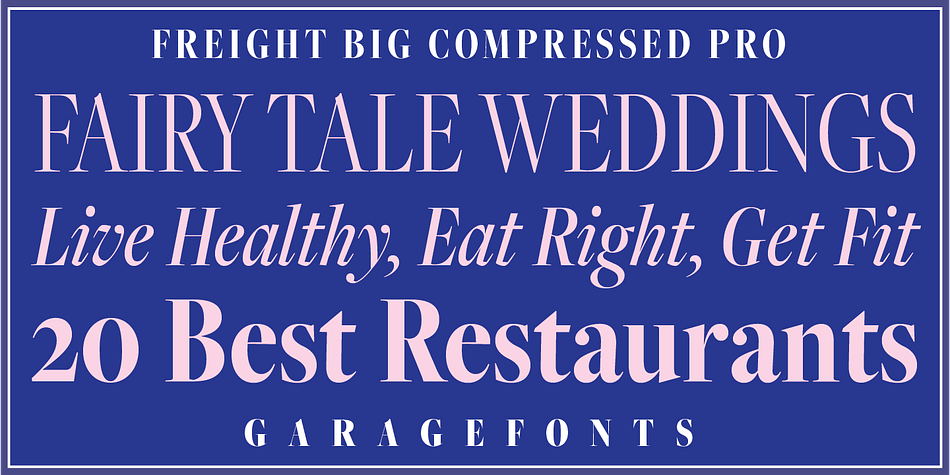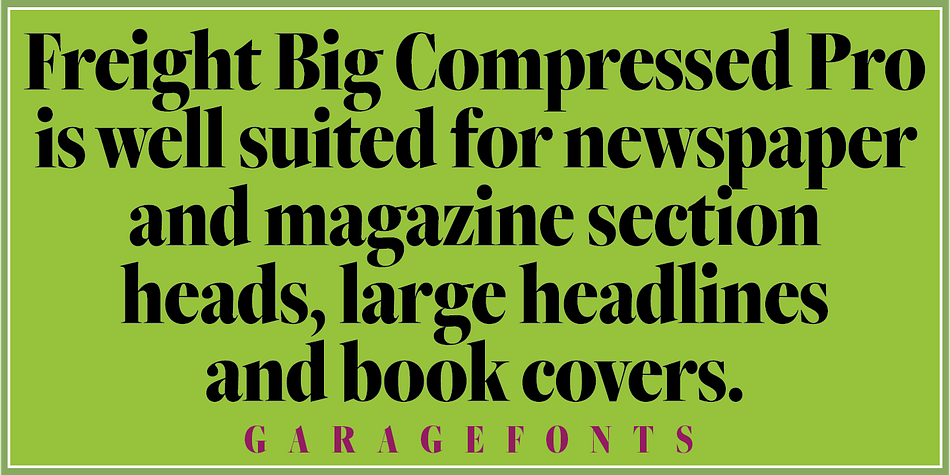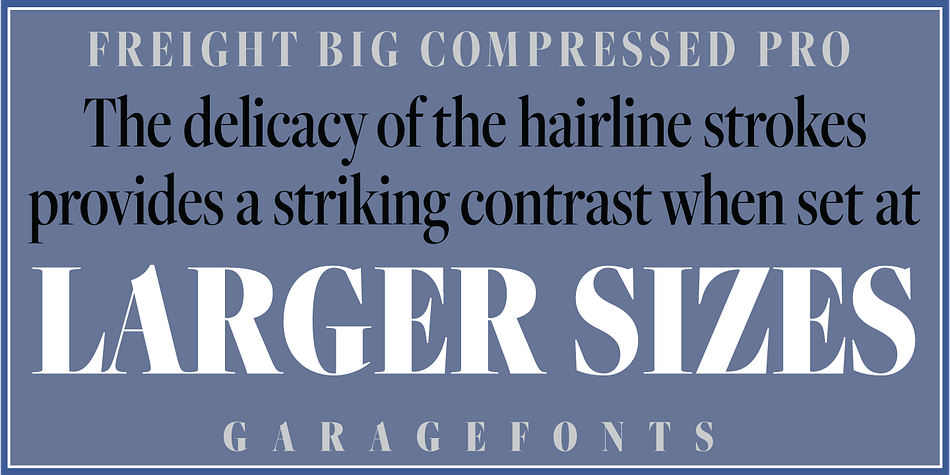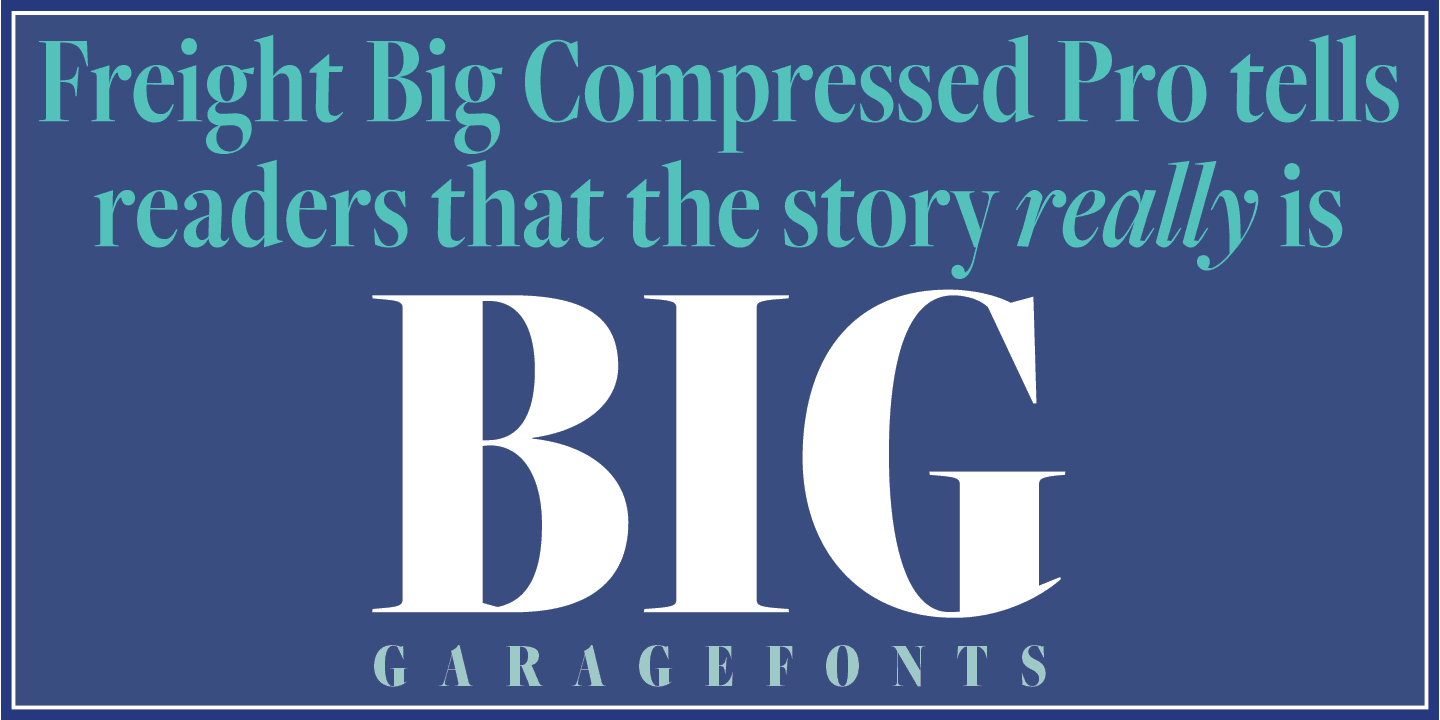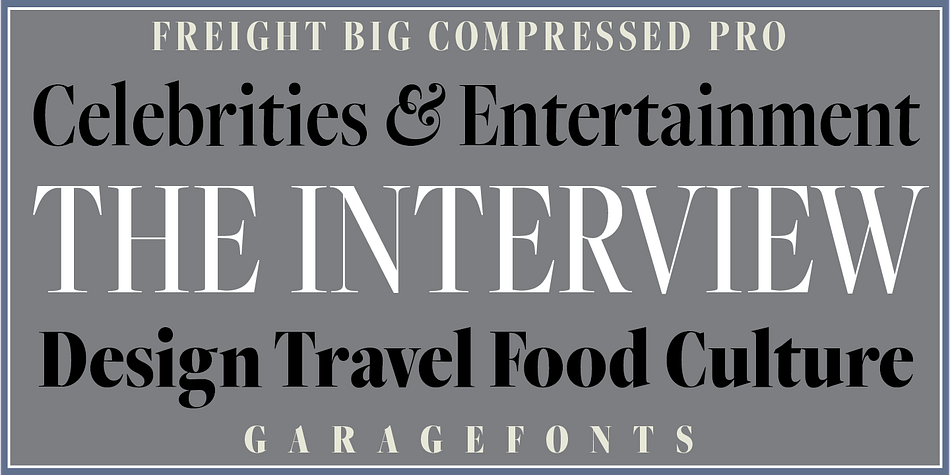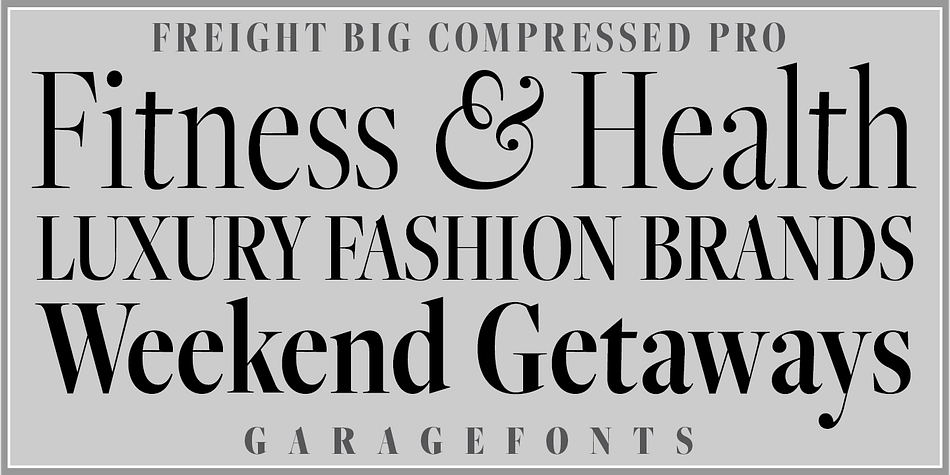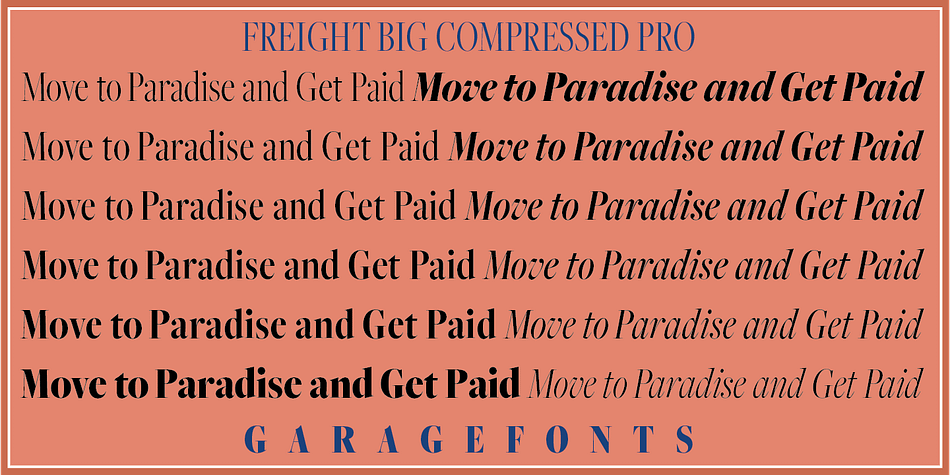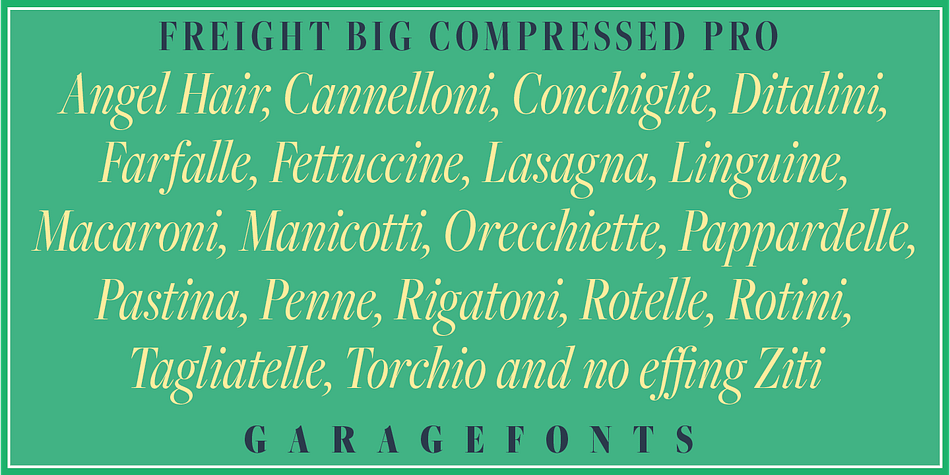
Freight Big Compressed Pro
Designed by Robby Woodard, Freight Big Compressed Pro is a serif font family. This typeface has twelve styles and was published by Freight Collection.
Freight Big Compressed Pro is well suited for magazine and newspaper section heads, large headlines and book covers. The delicacy of the hairline strokes provides a striking contrast when set at larger sizes. Freight Big Compressed tells readers that the story really is big.